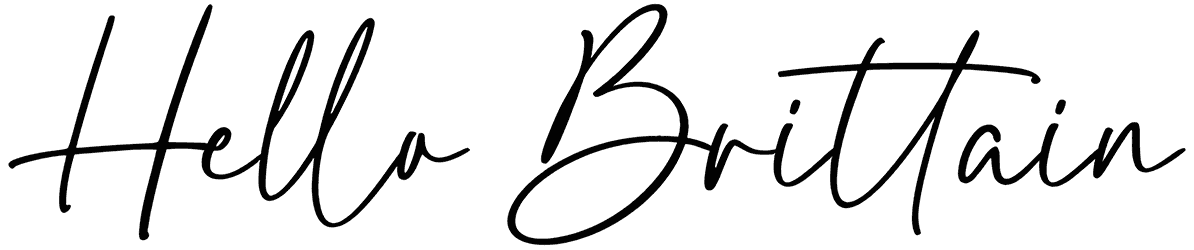
Hello Brittain Font
The charming visual of realistic handwritten words can give a chic vibe to your layout, and this handwritten font can do it. Hello Brittain font has a casual and smooth form and covers almost all characters. From a lawye…
The charming visual of realistic handwritten words can give a chic vibe to your layout, and this handwritten font can do it. Hello Brittain font has a casual and smooth form and covers almost all characters. From a lawyer’s business card to a novel book, you can count on this signature font to make them perfect.